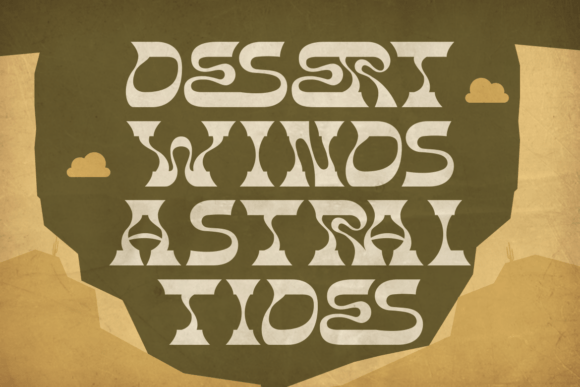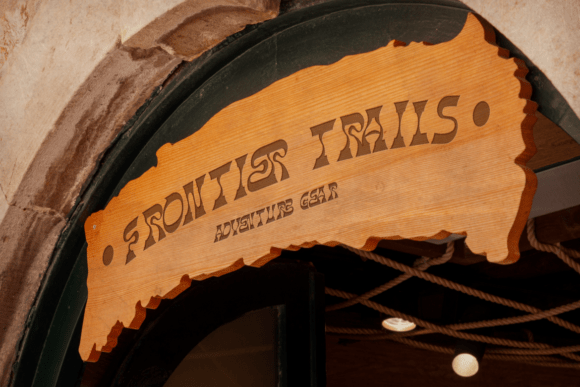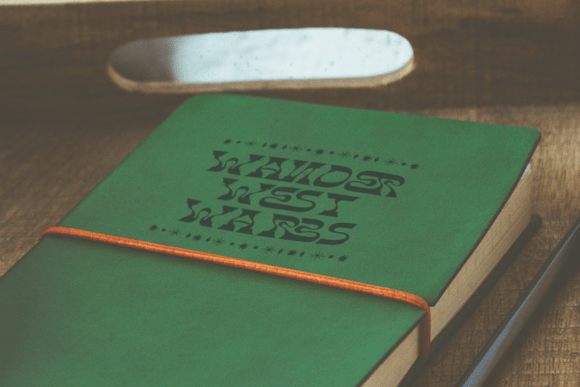
Introduction to Cosmic Canyon Font
Have you ever stared at a vintage western sign, mesmerized by the swirling patterns and distorted lettering that seemed to dance in the desert heat? That’s exactly the kind of magic that inspired the creation of Cosmic Canyon Font, a psychedelic typeface that captures the essence of retro counterculture and the freedom of the open road.
As a designer, there’s nothing quite like stumbling upon a high-quality design resource that perfectly captures the mood and atmosphere of a creative project. And that’s exactly what Cosmic Canyon Font offers – a unique blend of geometric symmetry, organic distortions, and textured, earthy tones that will transport your designs to a world of trippy wonder.
Key Features of Cosmic Canyon Font
- High-quality font design with a unique blend of cosmic and canyon-inspired elements, perfect for creative projects.
- Features a large character set, including uppercase and lowercase letters, numbers, and punctuation marks, making it suitable for a wide range of applications.
Honest Review: Cosmic Canyon Font
What I love about the Cosmic Canyon Font is its versatility. ✨ It comes in a range of styles, from casual to formal, making it suitable for a variety of design projects. The transparent background is also a great feature, allowing for seamless integration with other design elements.
- Range of styles to suit different design projects
Overall, the Cosmic Canyon Font is a high-quality design resource that can be a great addition to any designer’s creative project. While it has some limitations, its strengths far outweigh its weaknesses.
Tips for Getting the Most Out of Cosmic Canyon Font
Experiment with different font sizes and colors to create a unique look. Use the font in combination with other design elements to create a cohesive and visually appealing design. Don’t be afraid to get creative and try out new things!
Cosmic Canyon Font is perfect for a variety of design projects, including social media graphics, posters, and brochures. Its high-quality design and transparent background make it a great choice for creating eye-catching and professional-looking designs.